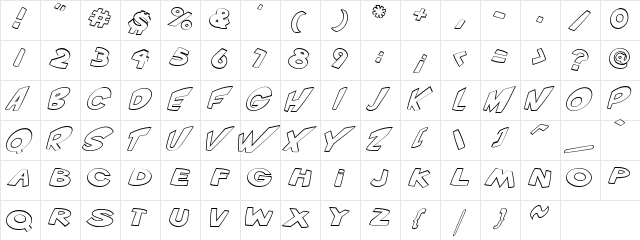
VTC ScreamItLoudOutline Italic
| Designer | WolfB ainX |
Design Context for VTC ScreamItLoudOutline Typeface
VTC ScreamItLoudOutline brings ornamental detail and strong personality to headlines and identities, where visual impact matters more than quiet functionality. Its italic angle brings a sense of urgency and motion to the letterforms.
Font Pairing: Pair with a clean neutral sans-serif for body copy to let VTC ScreamItLoudOutline's character lead without overwhelming the composition.
Pro Tip: Use VTC ScreamItLoudOutline exclusively at display sizes — it was designed to be seen, not read at length. Let a neutral companion handle body copy.